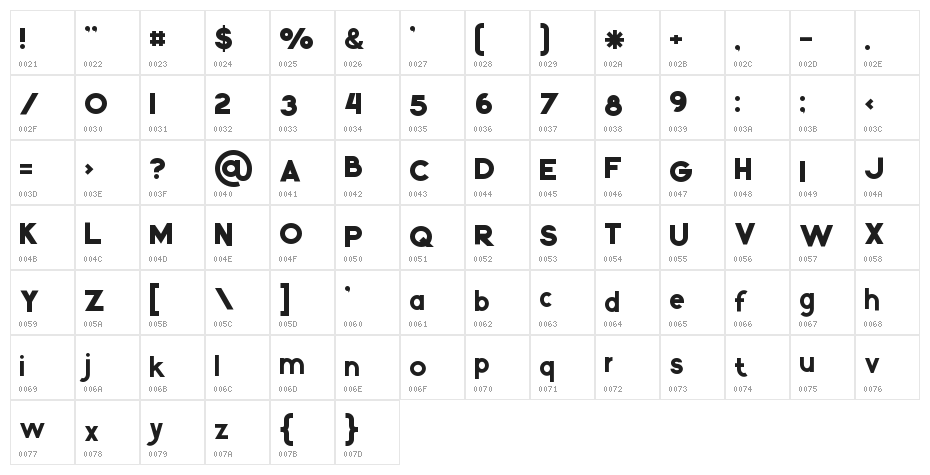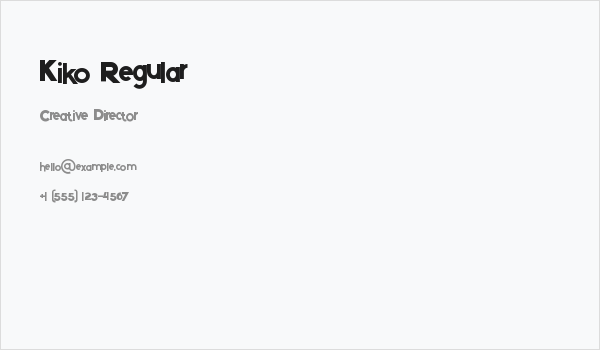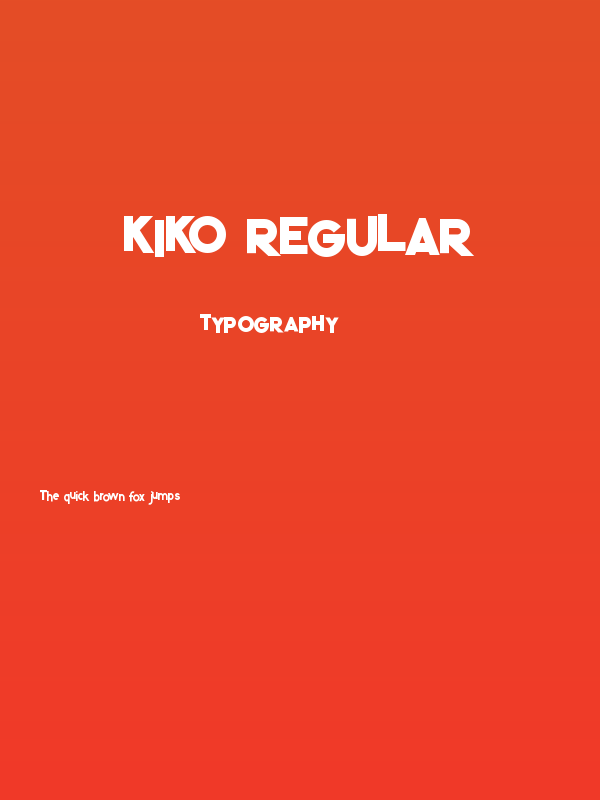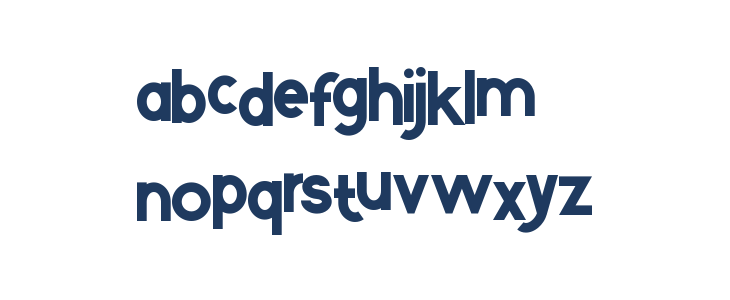
Kiko Regular Font
Kiko Regular Description
This font features a bold and geometric style with clean lines and a modern aesthetic. The uppercase letters are strong and impactful, while the lowercase letters maintain a consistent weight and structure. The numerals are clear and easy to read, complementing the overall design. Special characters are well-defined, adding versatility to the font. The uniformity in stroke width across all characters gives it a cohesive look, making it suitable for various design applications.
| Proposed Projects | Ideal for branding, headlines, posters, and digital media where a strong visual impact is desired. |